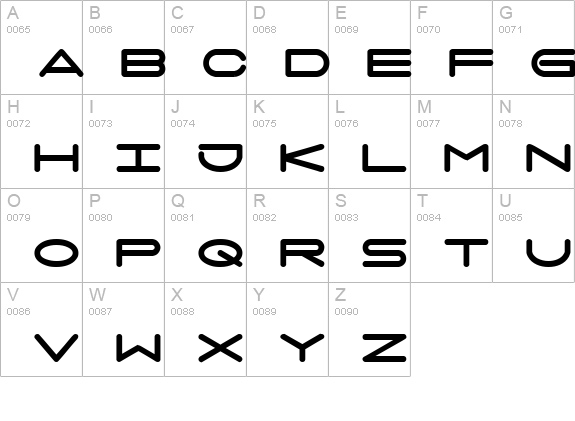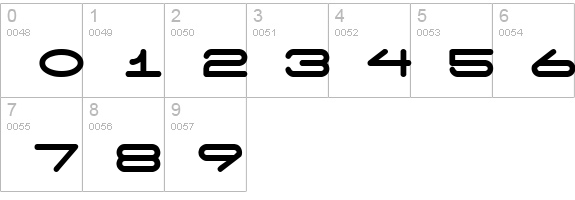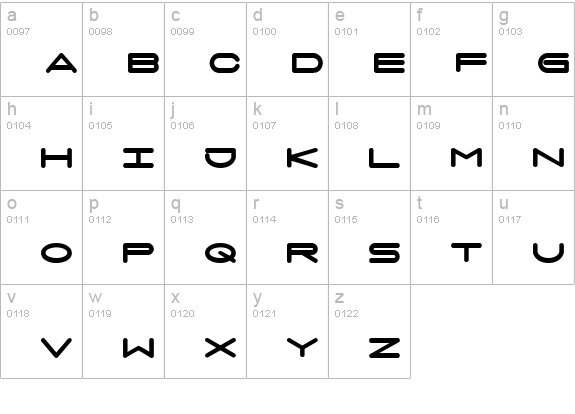
7 days fat Font Details
Introducing the captivating and stylish 7 Days Fat Font! This unique and eye-catching font is perfect for making a bold statement in your designs. With its thick and rounded letters, 7 Days Fat Font exudes a sense of confidence and modernity. Whether you're creating posters, logos, or social media graphics, this font is sure to make a lasting impression. Best of all, 7 Days Fat Font is completely free to download at FontsMarket.com! Don't miss out on the opportunity to add this versatile and attention-grabbing font to your collection. Download it today and start creating stunning designs that stand out from the crowd.